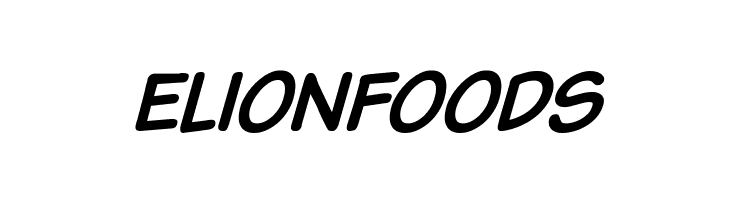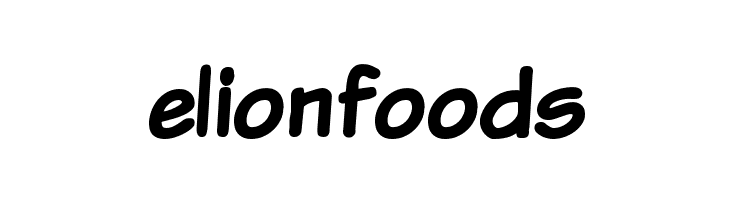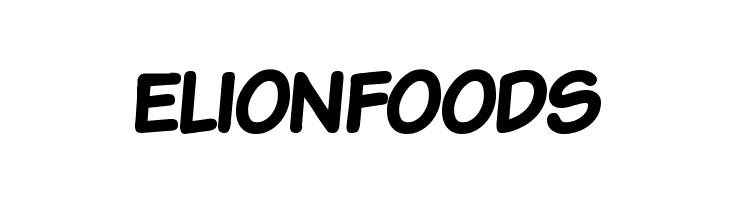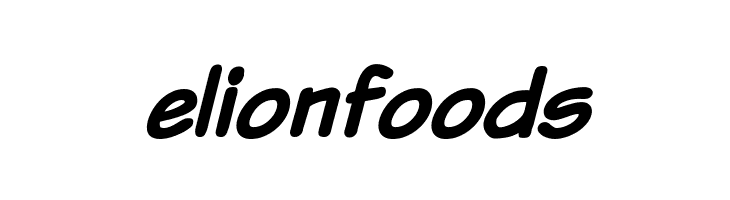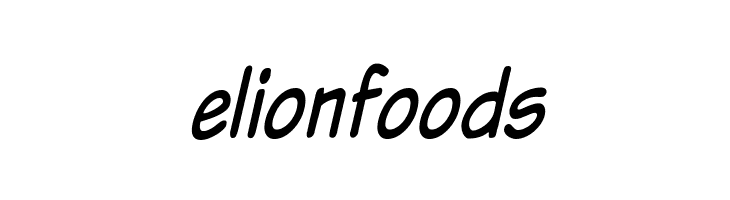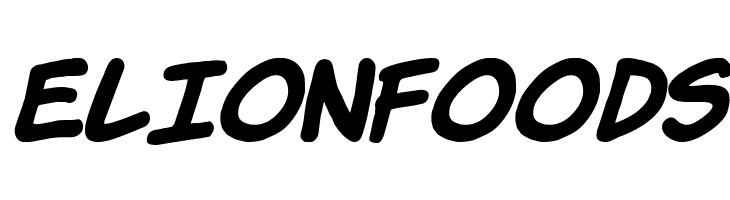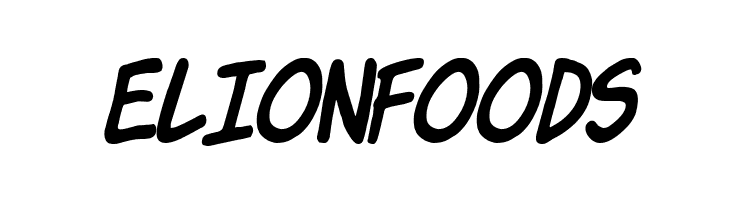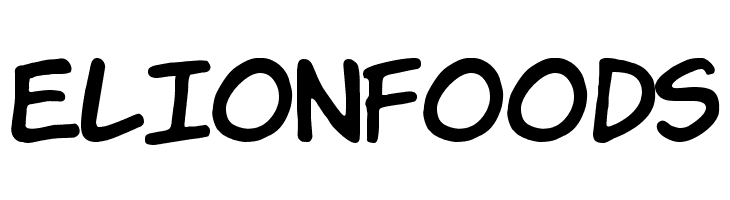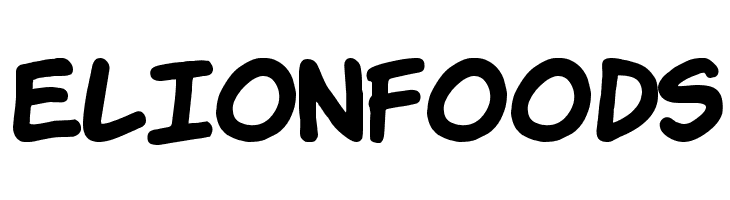
A bold, italicized, handwritten font with a playful and dynamic style.
A bold, playful handwritten font with rounded edges and a casual style.
A bold, playful font with rounded, slanted characters.
A bold, italic, and playful font with rounded characters.
A playful, bold font with rounded edges and a comic book style.
A playful, handwritten italic font with bold, rounded characters.
A bold, italicized handwritten font with a playful and dynamic style.
A bold, italicized, handwritten-style font with a playful and dynamic appearance.
A playful, bold handwritten font with a casual and friendly vibe.
A bold, playful handwritten font with rounded strokes and a casual style.